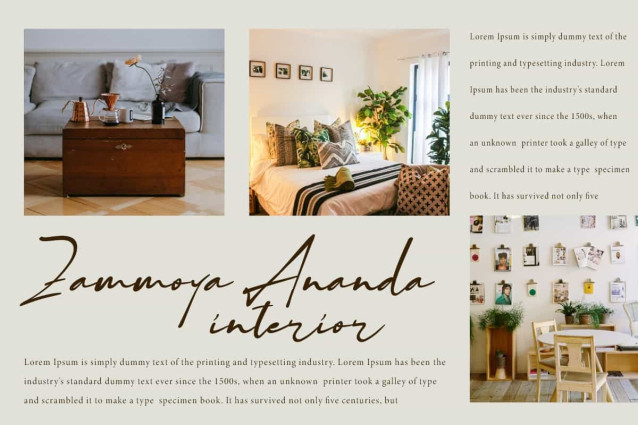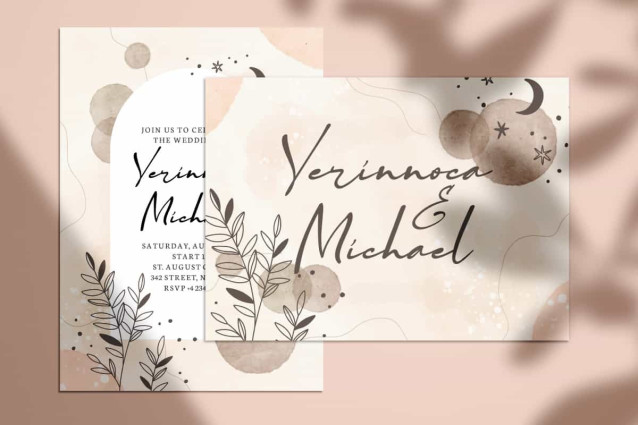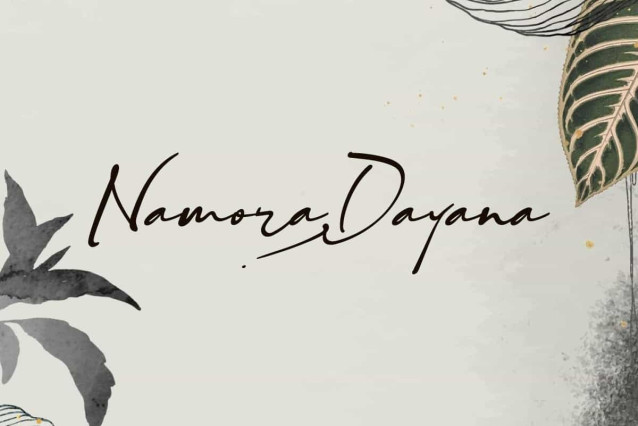
Namora Dayana Font
Namora Dayana Font is a calligraphy script font that exudes an elegant and artistic impression. With smooth strokes, naturally flowing letters, and charming details. This font will be perfect for various projects, such as advertising, beauty product, cafe, design interior, event or wedding organizer, fashion, handcraft, homeware, photography, spa and salon, and more!
Namora Dayana Font includes full set of Uppercase and Lowercase Basic Characters, Numerals, Punctuation, Symbol, and Swoosh character. This font presents a luxurious and exclusive feel. Making it a perfect choice for a variety of fields, such as invitation, brand logo, brochure, custom design, label, packaging design, quote, screen printing, stationery, website, etc.